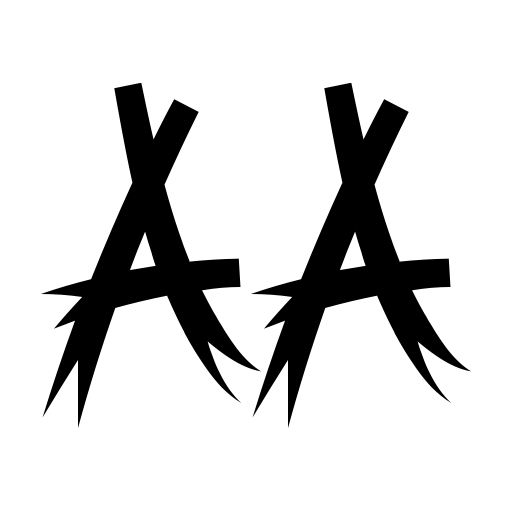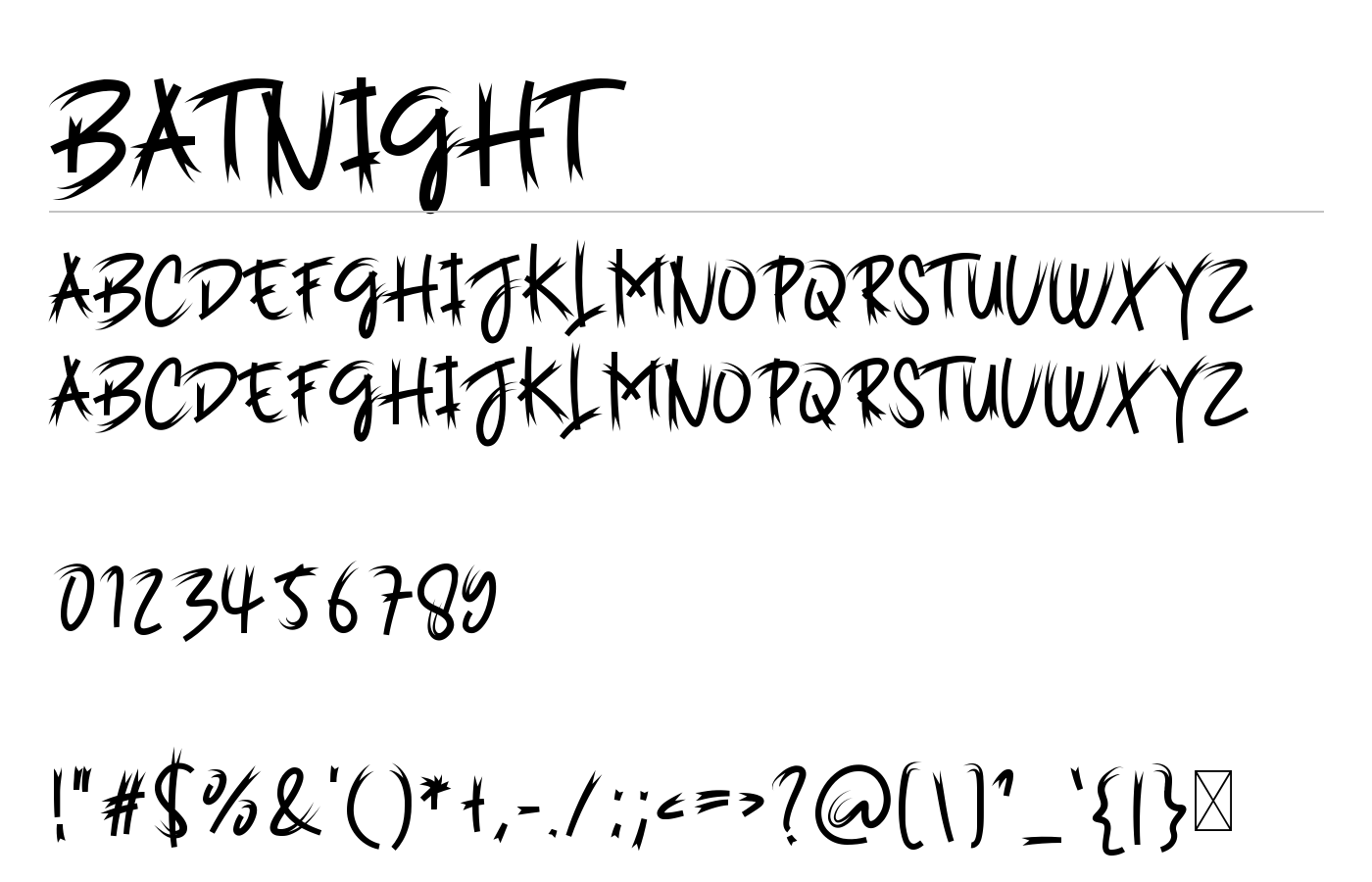
Batnight is a dynamic and edgy handwritten font with sharp, jagged strokes that create a sense of movement and intensity. Its narrow, irregular letter shapes and high contrast between thick and thin lines give it a bold, expressive personality, perfect for Halloween themes, posters, or any design needing a spooky, energetic vibe. This font works best in headlines and branding where a dramatic, unconventional look is desired.
Batnight Font
About Batnight Font